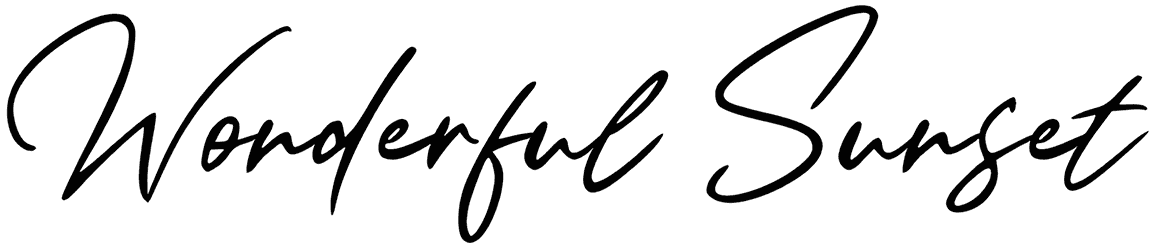
Wonderful Sunset Font
Make a wondrous sunrise for your coming design with Wonderful Sunset. This handwritten font will throw a lively and emotive mood into the text. Wonderful Sunset doesn’t contain all the numbers, but it is still an attractive option in many designs, such as posters, social media posts, illustrations, or any text that you want to display.